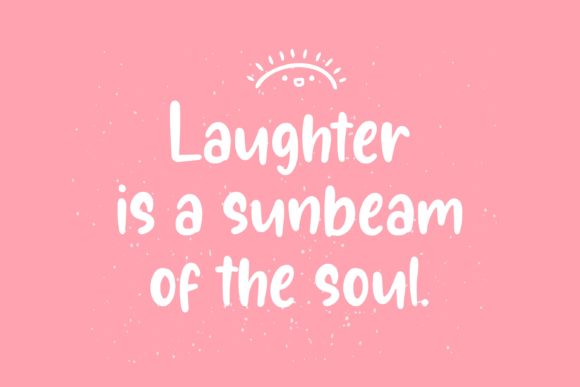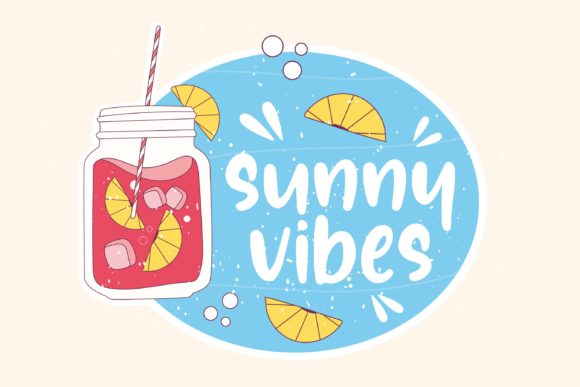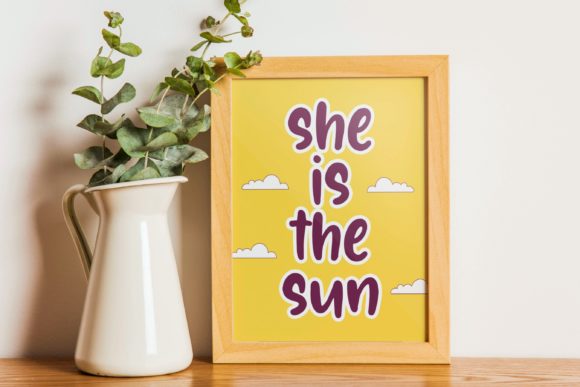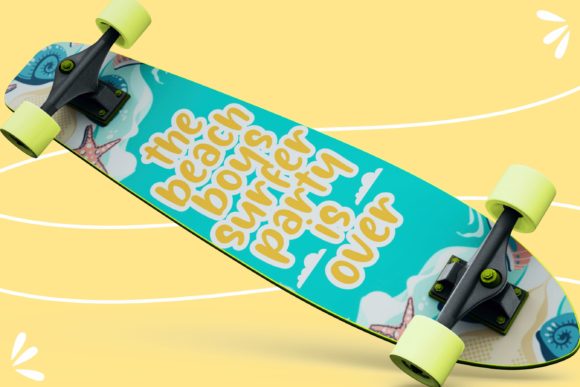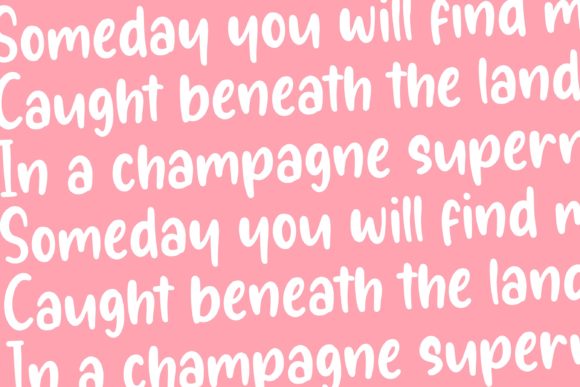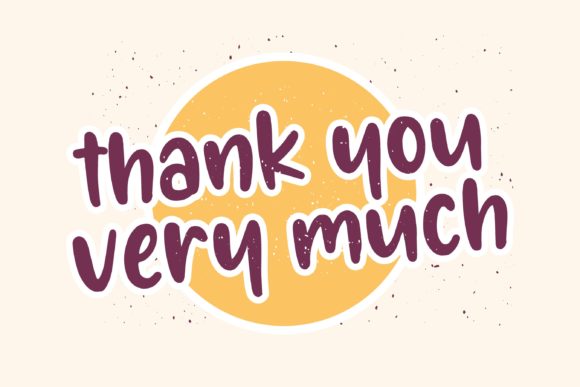
Sunglory Font
About Sunglory Font
Sunglory is a sweet handwritten font, described by an elegant touch, perfect for your favorite projects. Fall in love with its incredibly distinct and cute style and use it to create lovely designs!